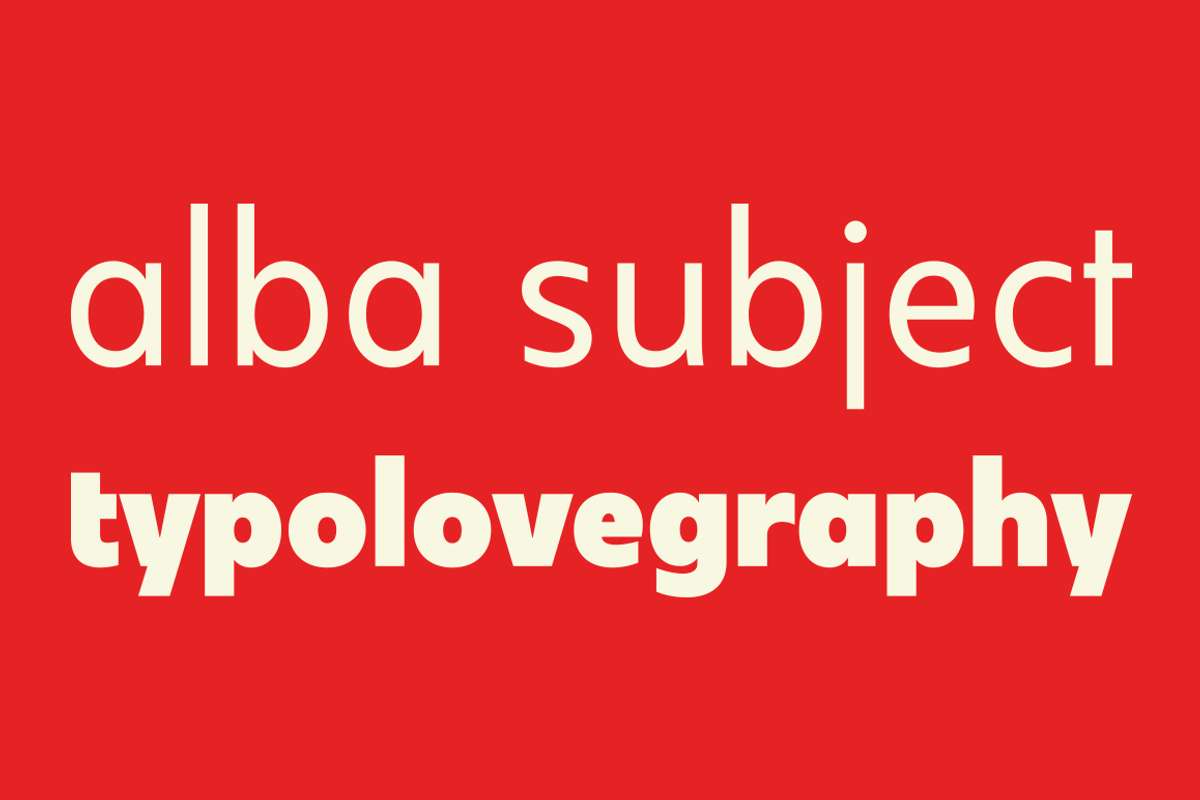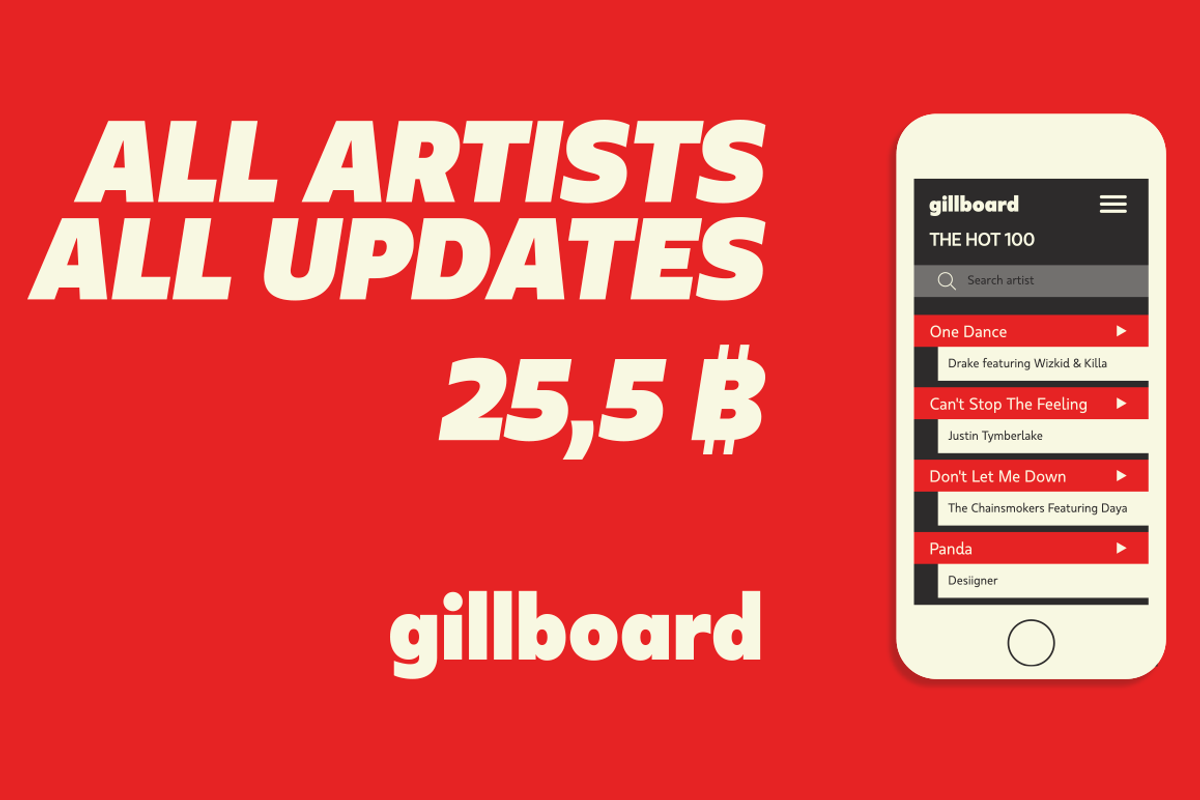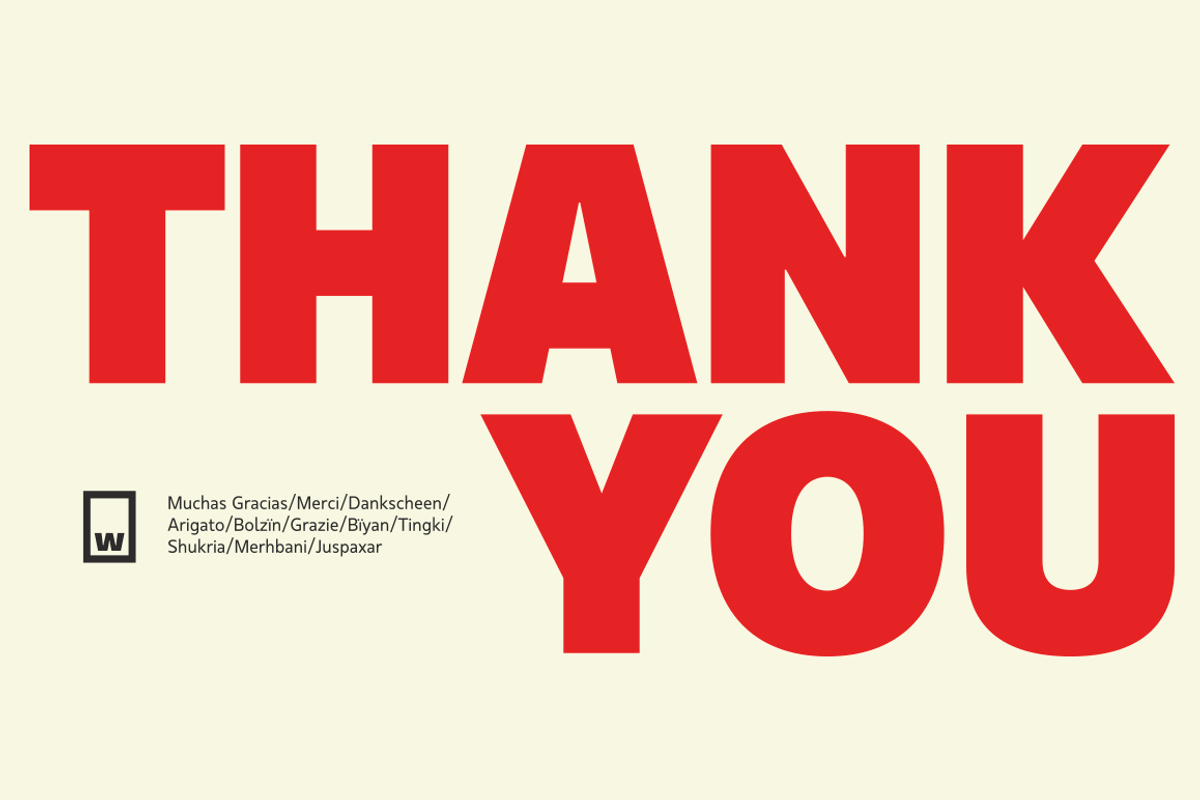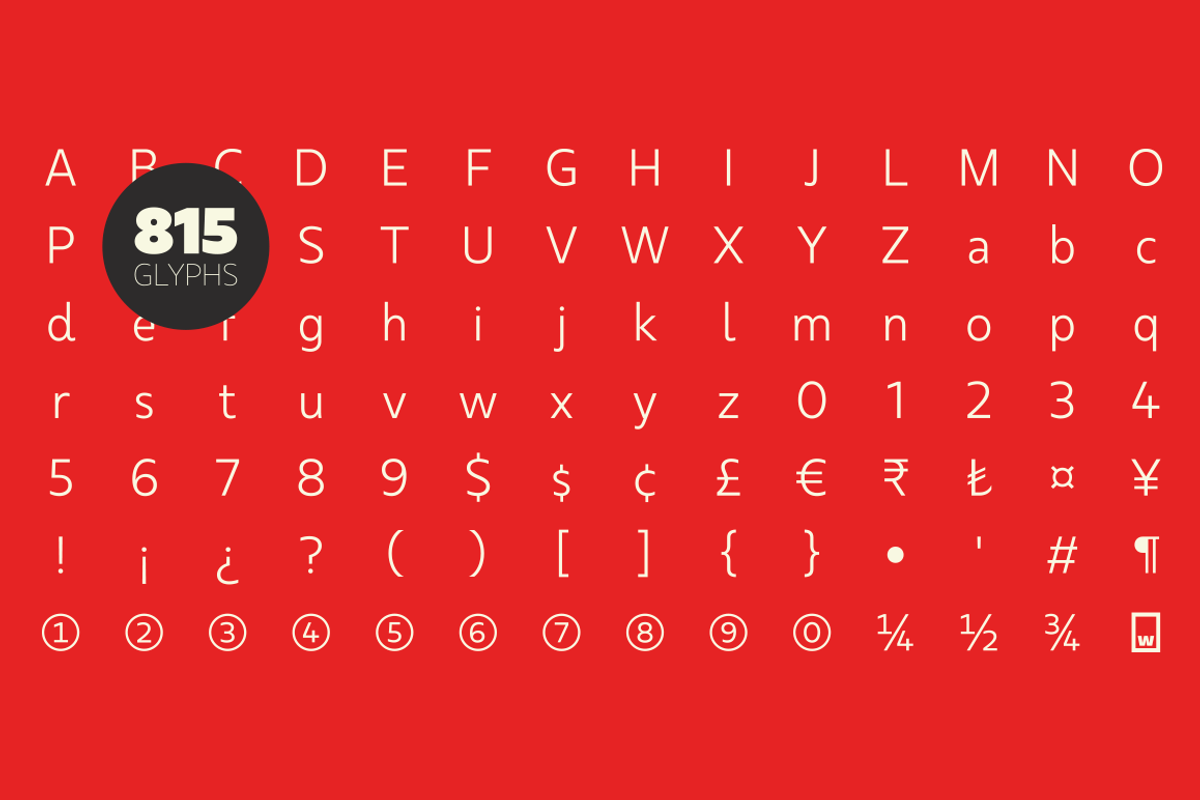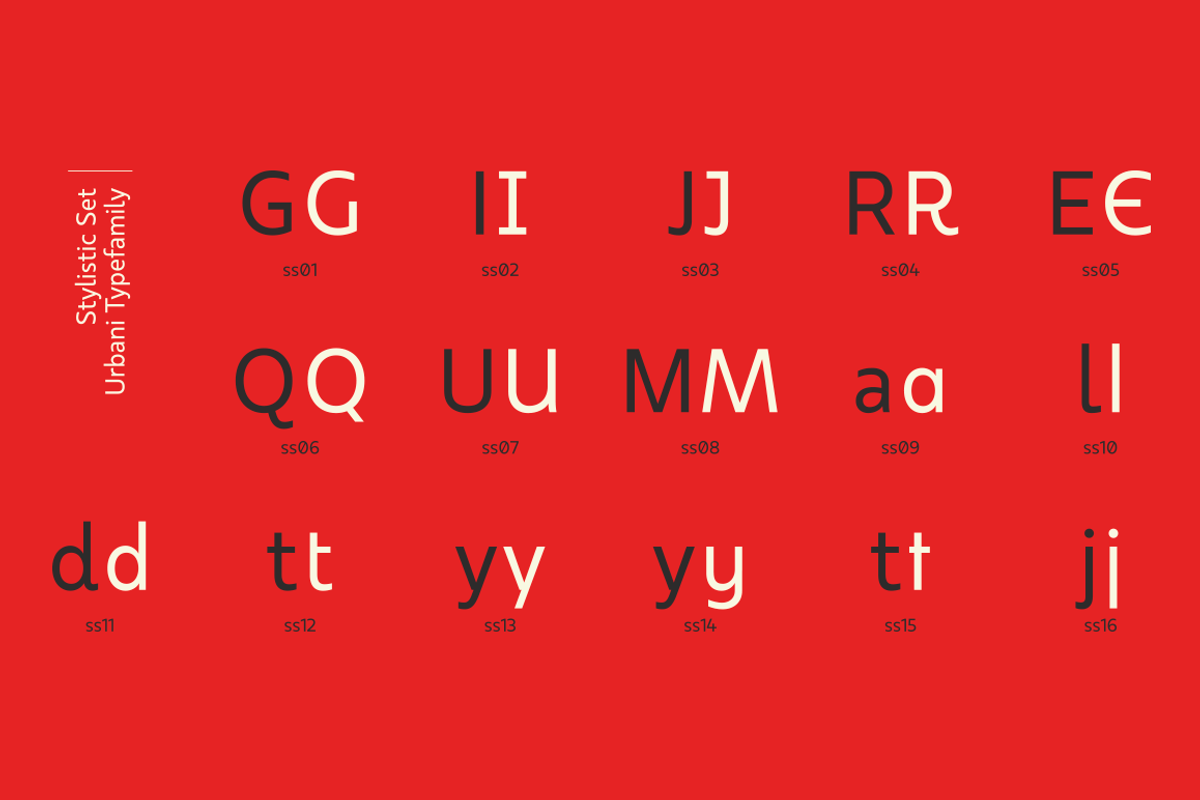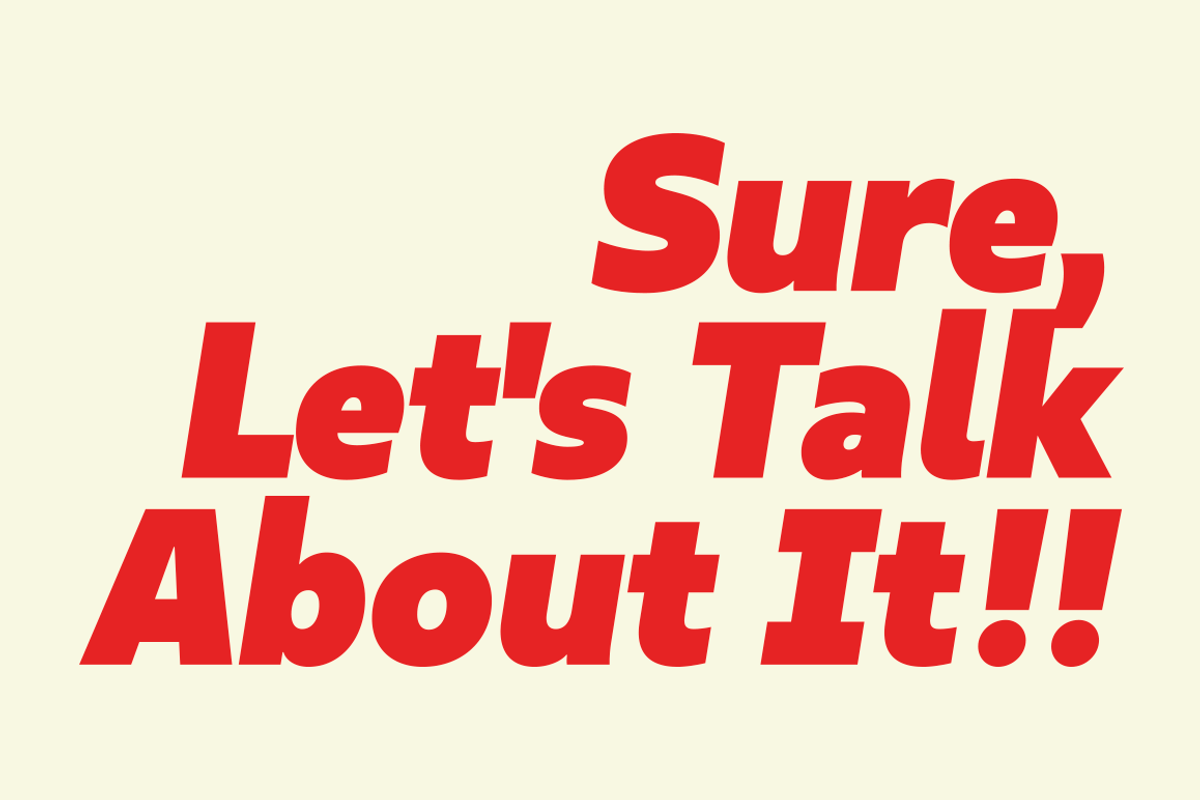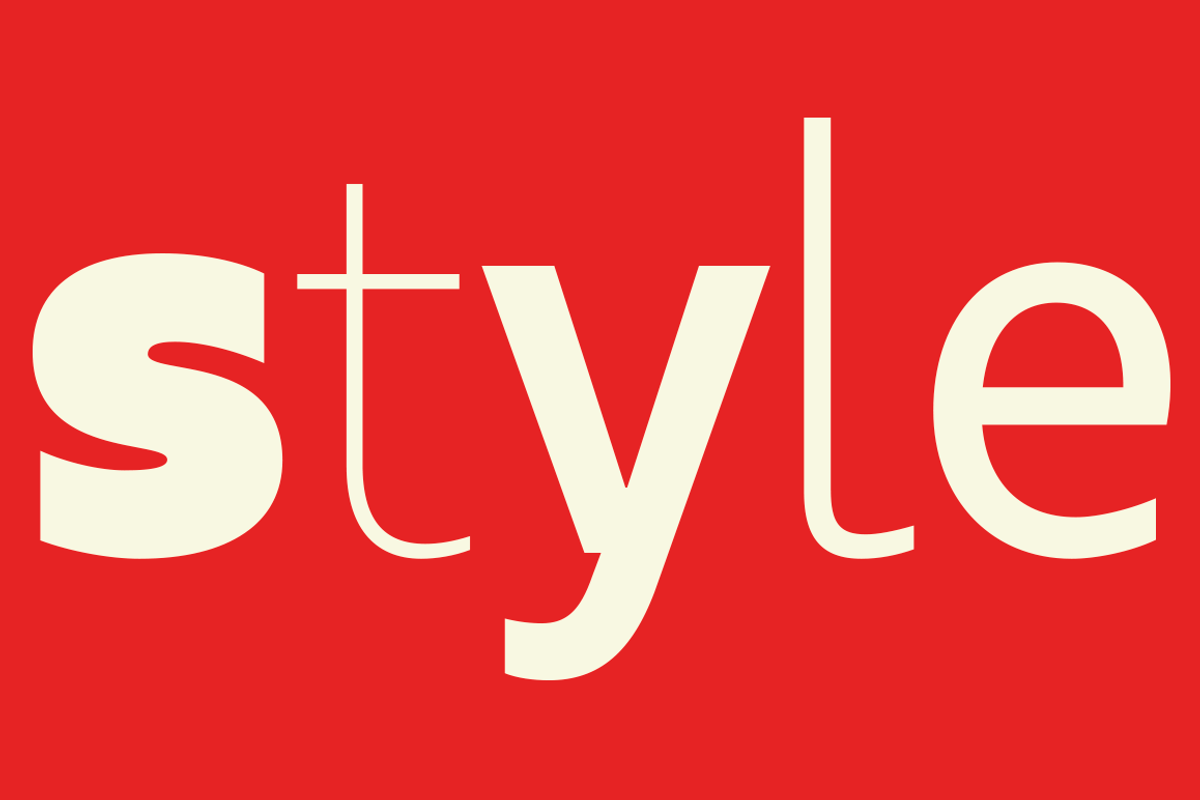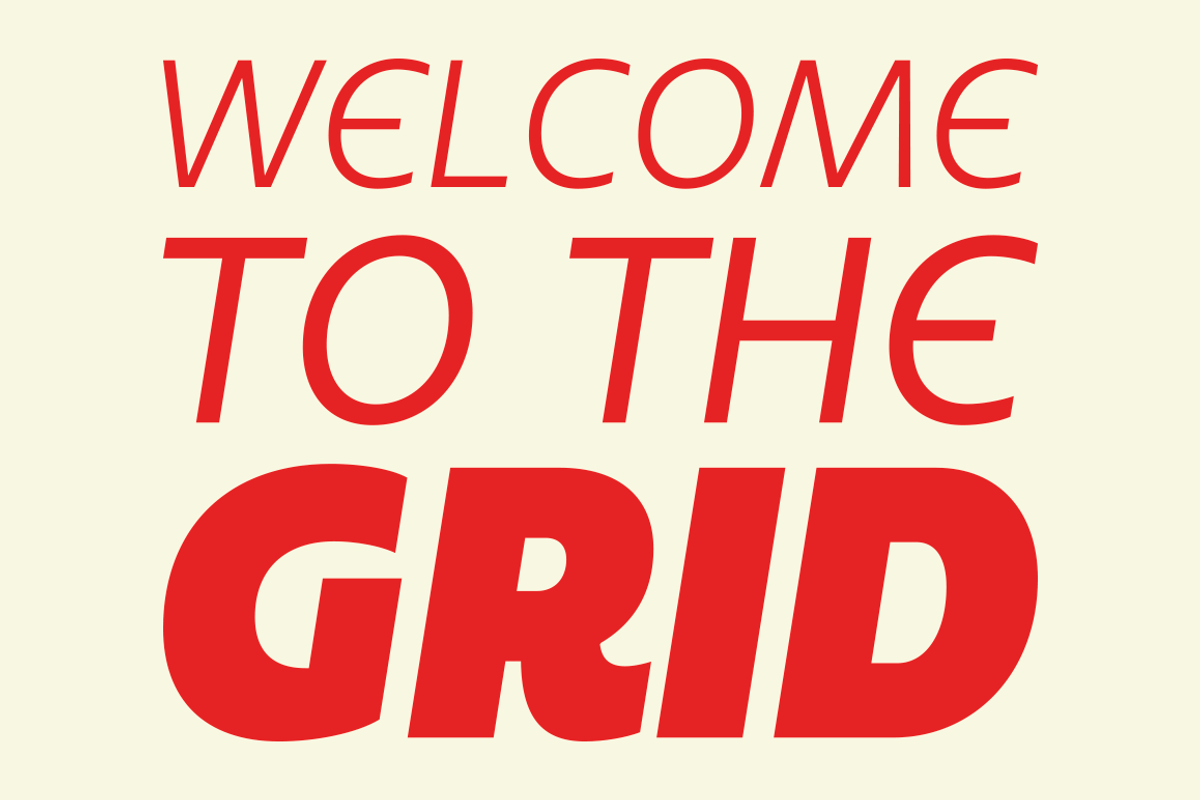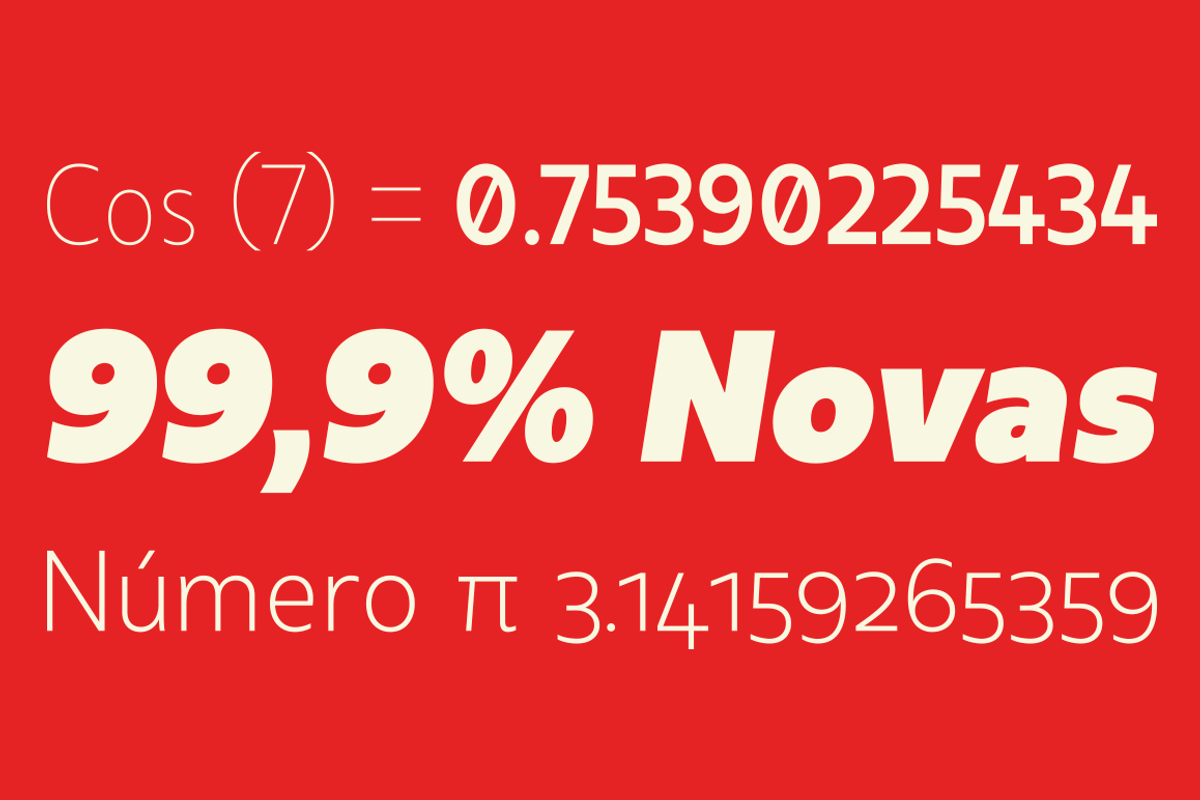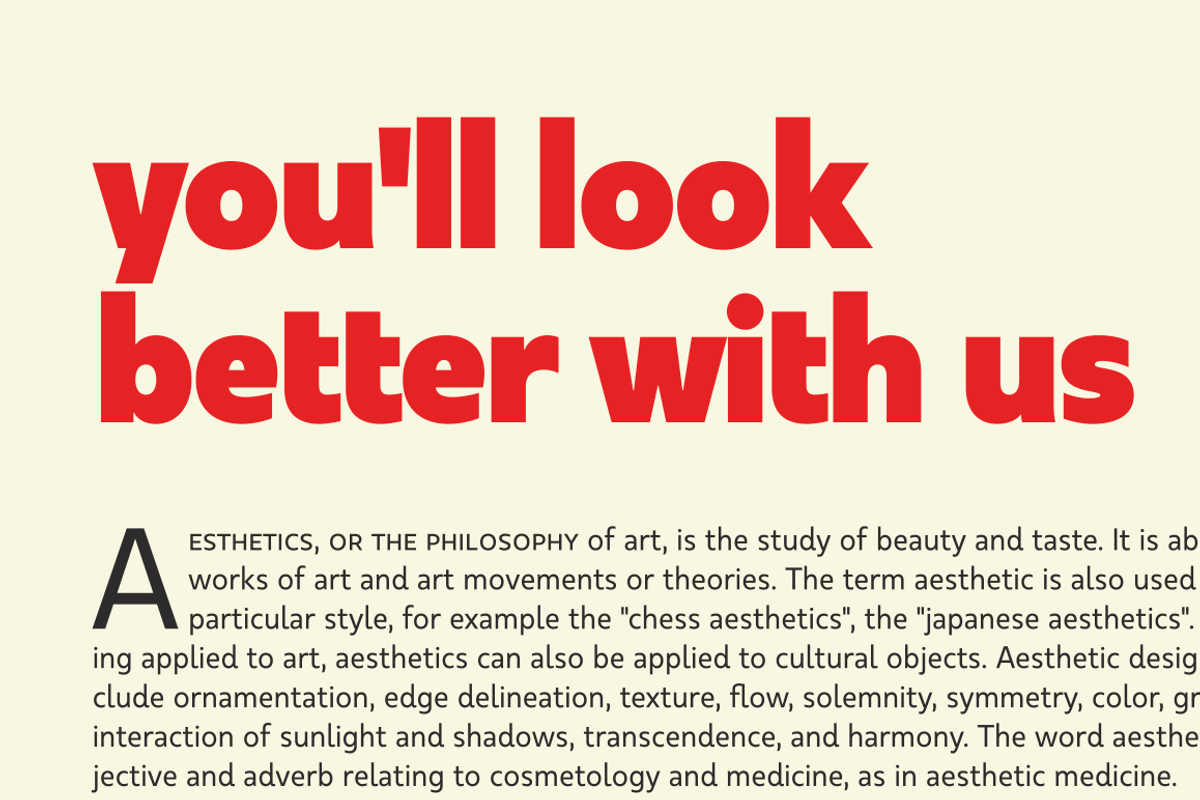
URBANI is the result of a mix between Neohumanist and Neogrotesque types. The subtle narrowness of its proportions makes it ideal for composing extensive blocks of text. The slightly superior height of its ascenders, the wider proportions of its counter-forms, the addition of ink traps at certain stroke intersections; every aspect of URBANI’s design was conceived with reading in mind. The Opentype tool Alternative Glyphs is especially important, since its use is fundamental in achieving a universal and geometrical visual language through the rationalization of the font family. URBANI is inspired upon the works of Adrian Frutiger and Paul Renner, a constant source of admiration and inspiration to W.
This type family comes fully equipped with Opentype tools, a huge range of alternate glyphs, fractions, modern and old style numbers, superiors and inferiors, ligatures and smallcaps. Universality is a major goal when it comes to creating our fonts. URBANI is ideally suited for general graphic design, print and digital publications, motion graphics, web design, branding and interaction design.